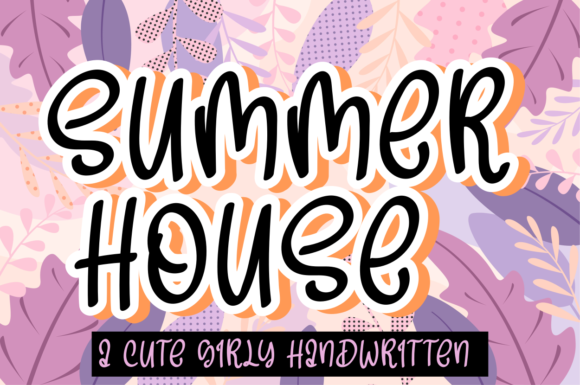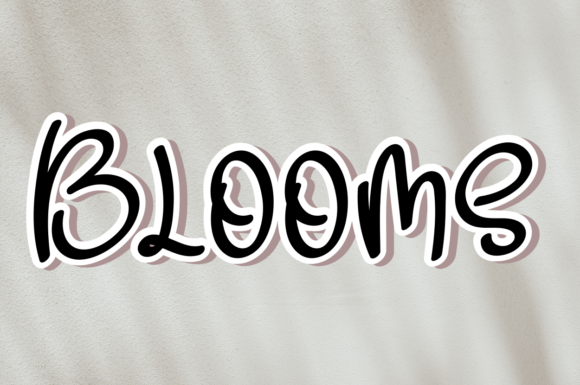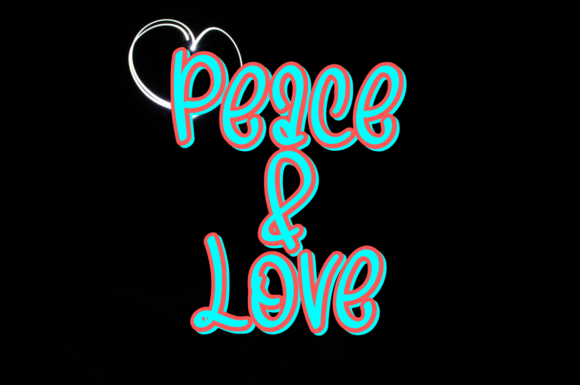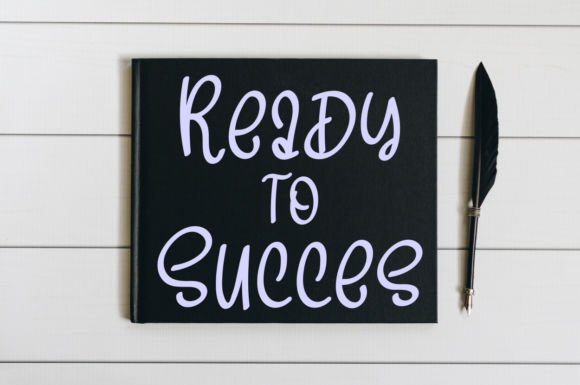
Summer House Font
About Summer House Font
Summer House is a sweet and friendly handwritten font. Its natural and unique style makes it incredibly fitting for a large pool of designs. The only limit is your imagination!